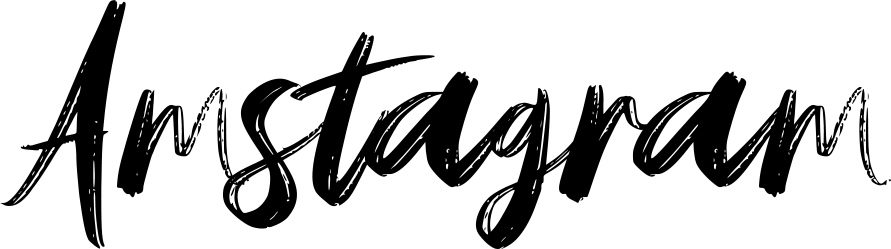
Amstagram Font
Designed byVaiminit
Amstagram is an aggressive brush font. If you need an authentic brush texture that stands out and makes a bold statement, this font is for you.